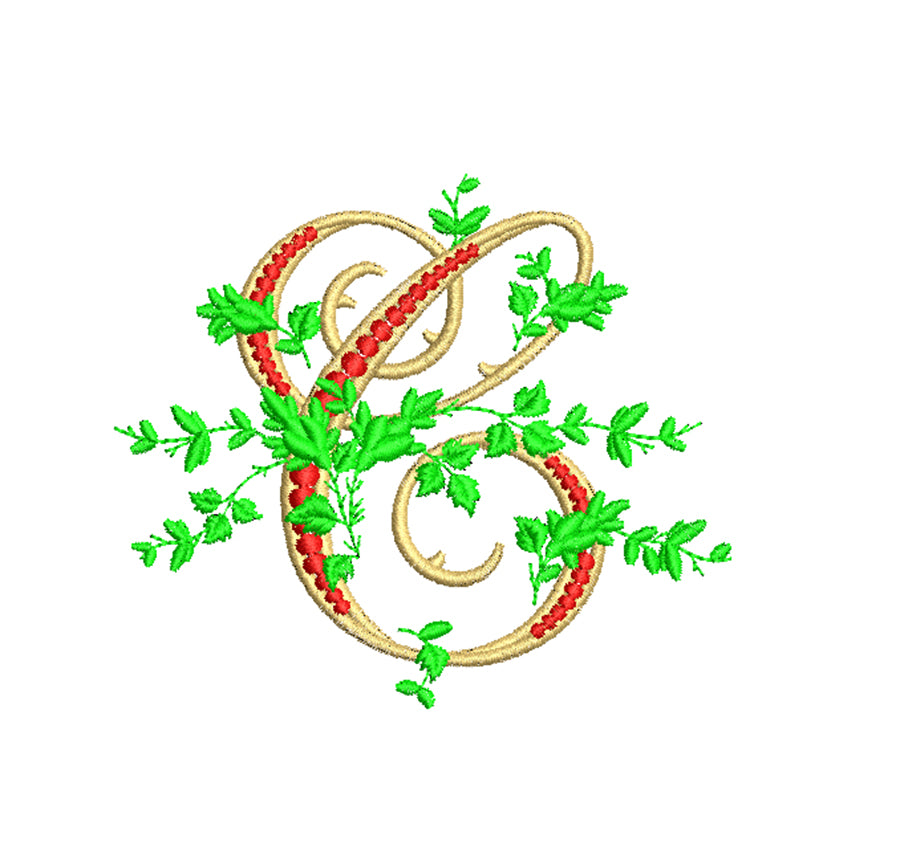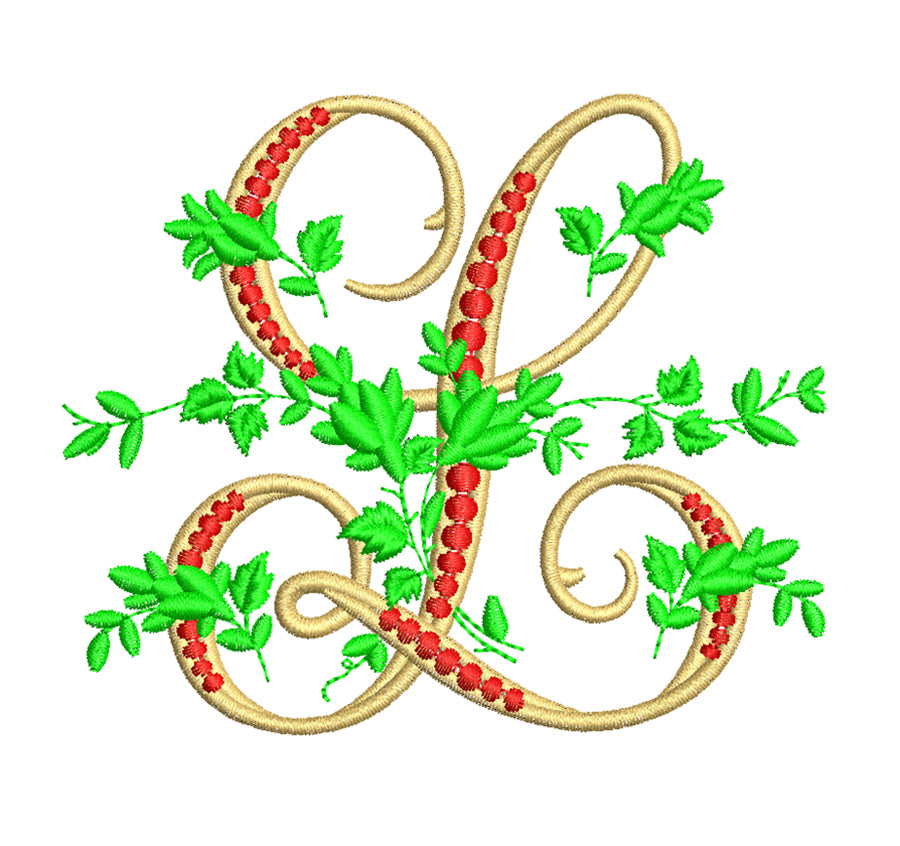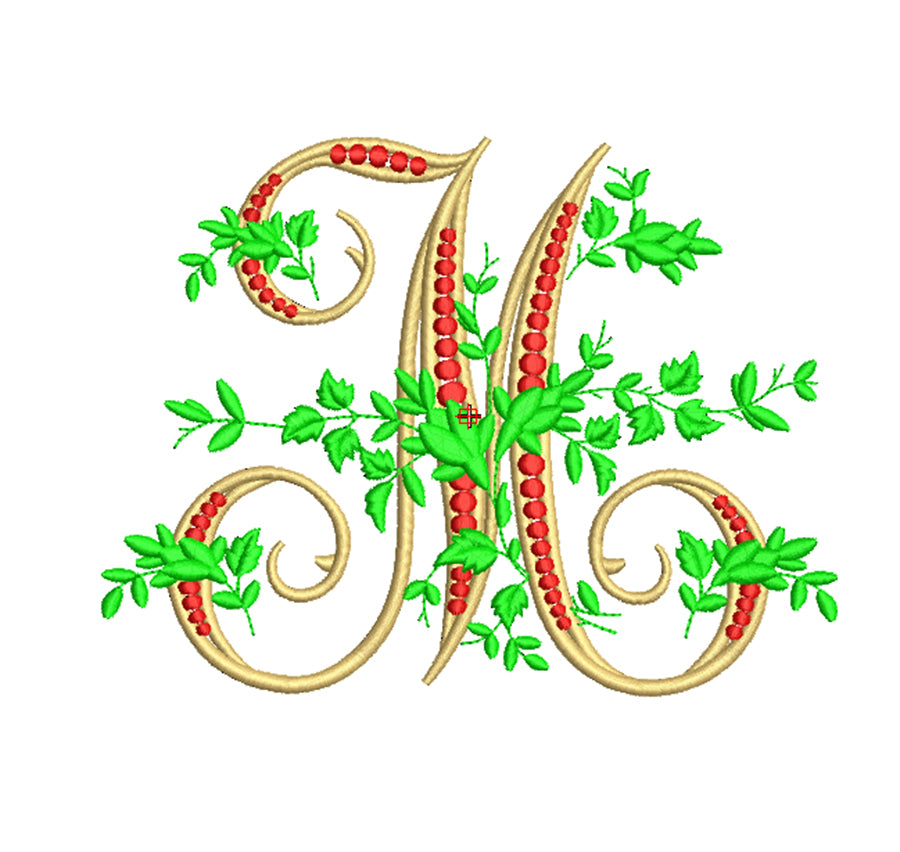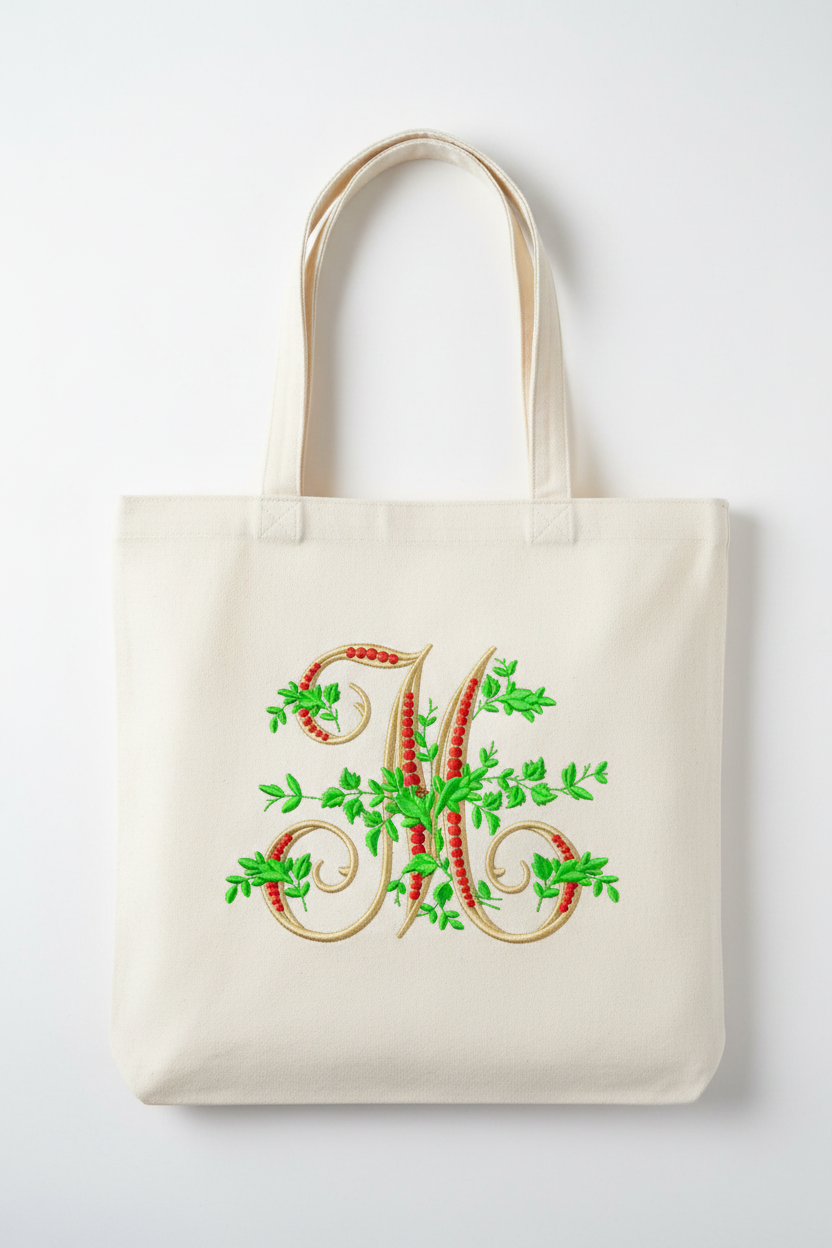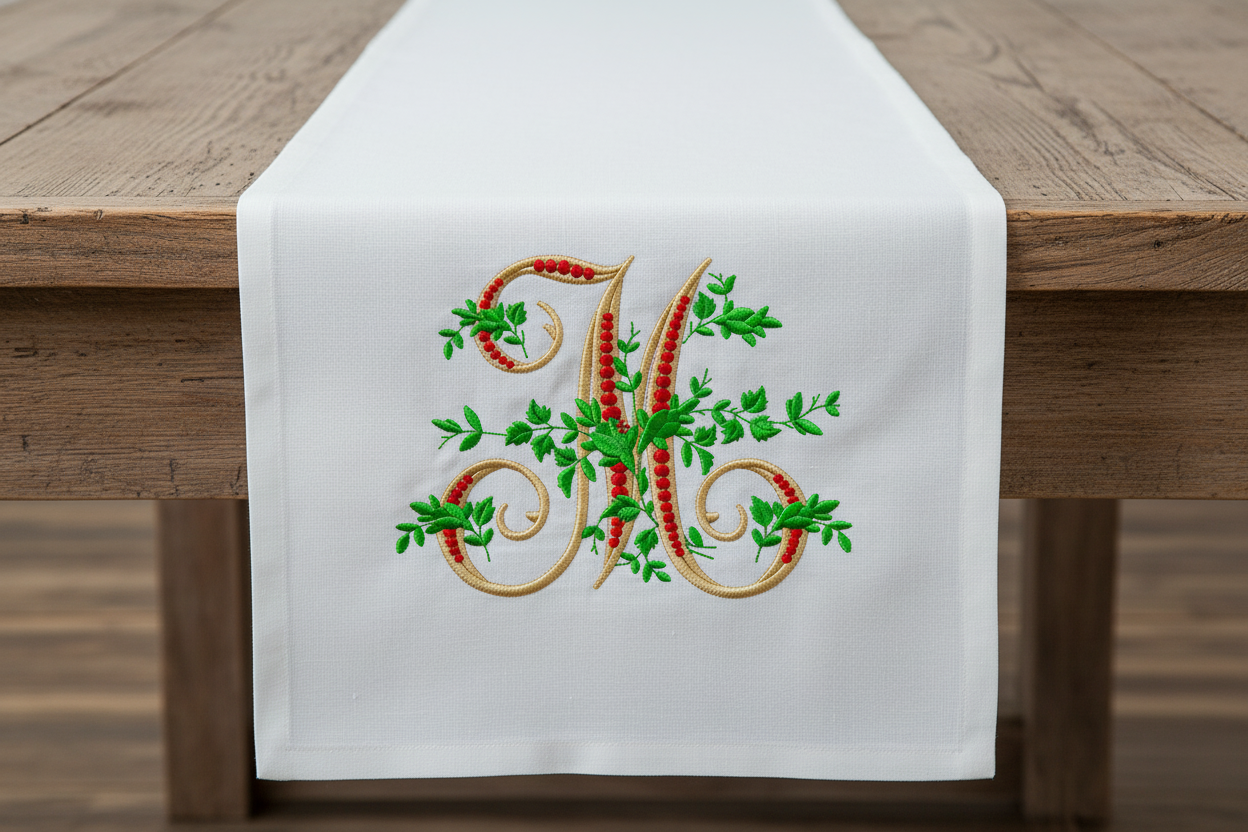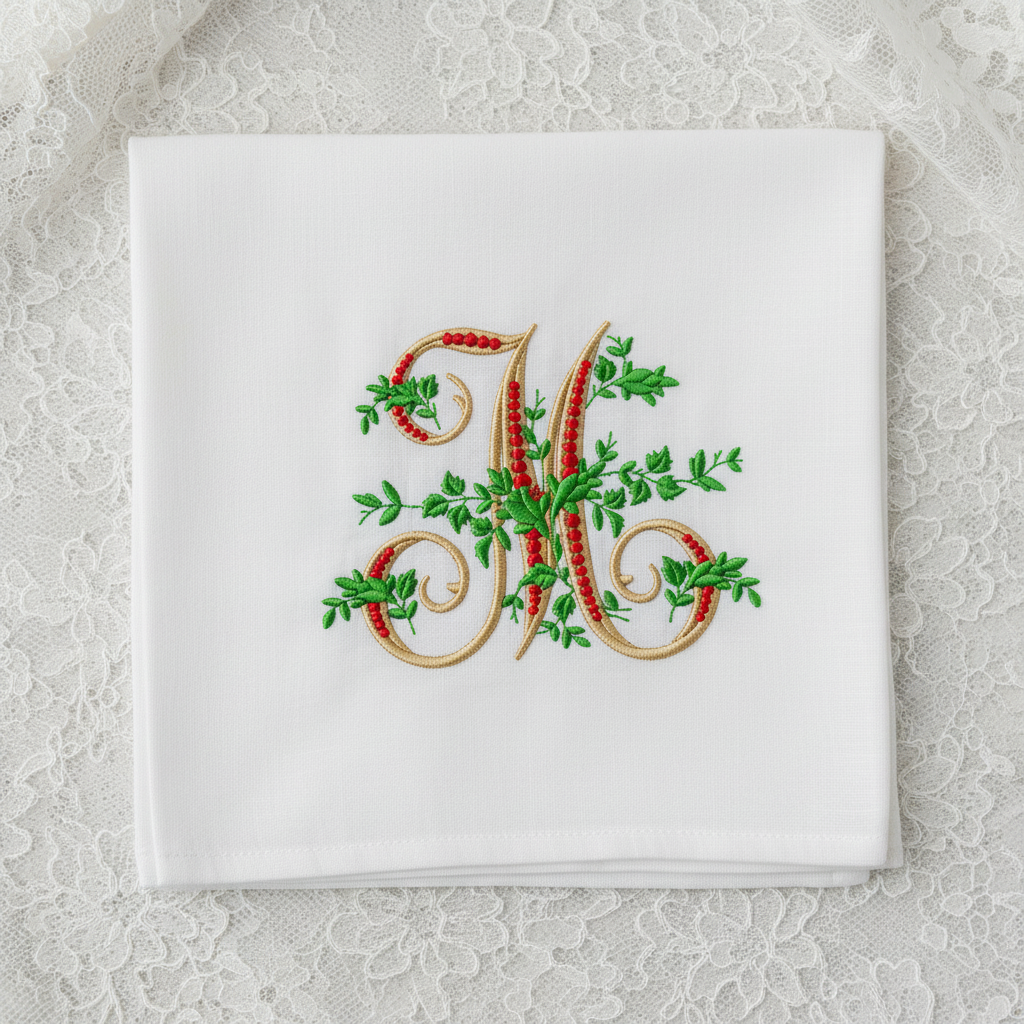
Floral embroidery digital font. Machine embroidery alphabet with floral design. BX included.
Floral Embroidery Digital Font
Add an elegant, nature-inspired touch to your embroidery projects with this stunning Floral embroidery font — featuring beautifully detailed letters adorned with delicate leaves, vines, and berries in rich gold, green, and red tones.
Perfect for monograms, wedding gifts, home décor, and personalized keepsakes that deserve a truly special finish.
- Style: Floral / Decorative fill stitch
- Great for: Monograms, wedding gifts, towels, tote bags, apparel